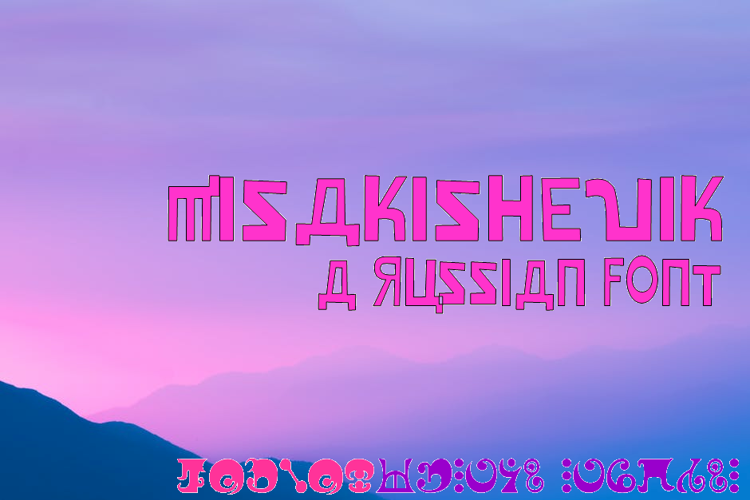
Misakishevik Font
Misakishevik Font is a Faux Russian font and was created on . Since then, it has been downloaded 2,789 times and added to 48 collections. 5 people have liked Misakishevik Font and given it a thumbs up.
This is a Cyrillic-faux font and (maybe?) the first foreign-look font.